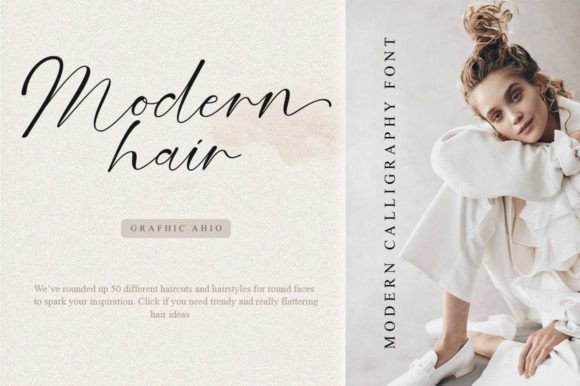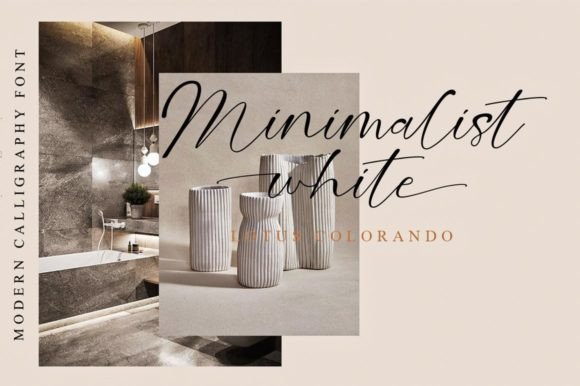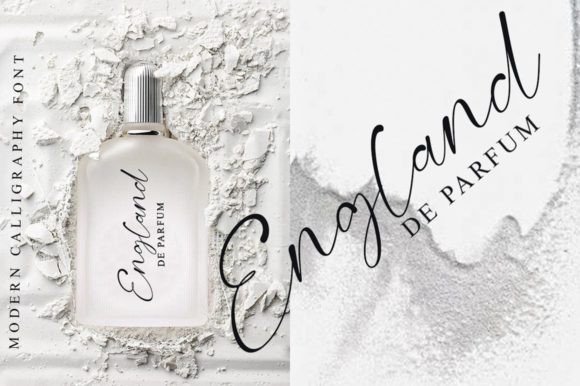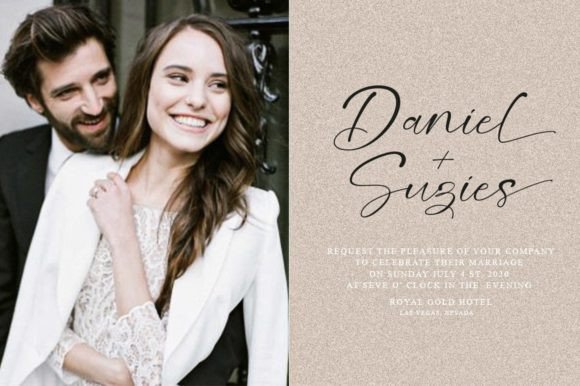
Introducing Costar Oliya Font: Elevate Your Designs with Modern Calligraphy
In the world of typography, a font can make all the difference in the success of a design project. For designers and crafters looking for a modern calligraphy script font that adds a touch of elegance and fun, Costar Oliya is an excellent choice. This versatile font is perfect for a wide range of applications, from logo designs and social media graphics to movie titles, book titles, and more.
What Makes Costar Oliya Special?
Costar Oliya is a modern calligraphy script font that boasts a unique blend of style and playfulness. Its characters feature a bit of binder and alternatives, giving your designs a distinctive and creative edge. Whether you’re working on a logo, a social media post, or a book title, Costar Oliya is sure to make your text stand out.
One of the best things about Costar Oliya is its versatility. This font is great for:
- Logo Designs: Create stunning logos that capture the essence of your brand with Costar Oliya’s elegant and modern calligraphy.
- Social Media: Elevate your social media graphics with a font that’s both fun and sophisticated.
- Movie Titles: Add a touch of glamour to your movie titles with Costar Oliya’s cinematic feel.
- Book Titles: Make your book titles stand out with a font that’s both elegant and eye-catching.
- Short and Long Text: Whether you’re working with short phrases or longer blocks of text, Costar Oliya is a great choice.
- Secondary Text: Pair Costar Oliya with sans or serif fonts for a beautiful contrast that adds depth to your designs.
Tips for Using Costar Oliya
To get the most out of Costar Oliya, here are a few tips:
- Experiment with Swashes: Use the glyphs and swashes to add flair to your designs and make them more dynamic.
- Mix and Match: Pair Costar Oliya with other fonts to create interesting contrasts and add depth to your designs.
- Play with Size and Color: Don’t be afraid to experiment with different sizes and colors to make your text stand out.
Costar Oliya is a versatile and elegant modern calligraphy script font that’s perfect for designers and crafters looking to elevate their designs. With its unique blend of style and playfulness, endless design possibilities, and PUA encoding for easy access, Costar Oliya is a must-have font for any creative project. So why wait? Create stunning masterpieces with Costar Oliya today!
- Modern calligraphy script font
- Fun characters with binder and alternatives
- Perfect for logo designs, social media, movie titles, book titles, and more
- Great for short and long text, and secondary text with sans or serif fonts